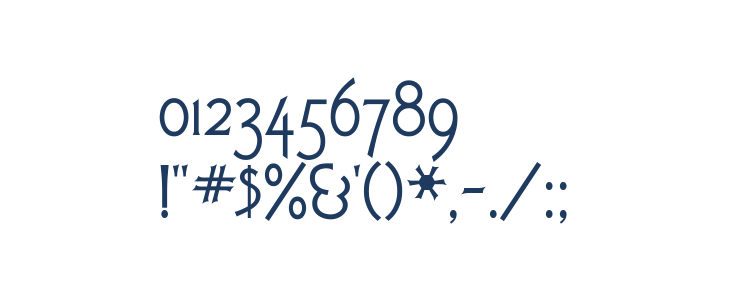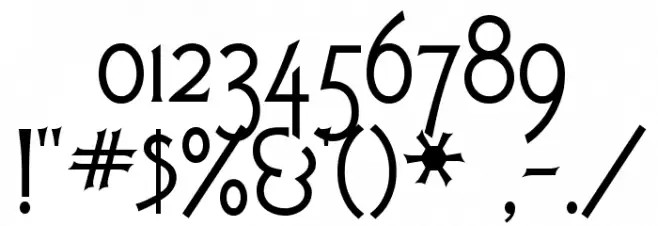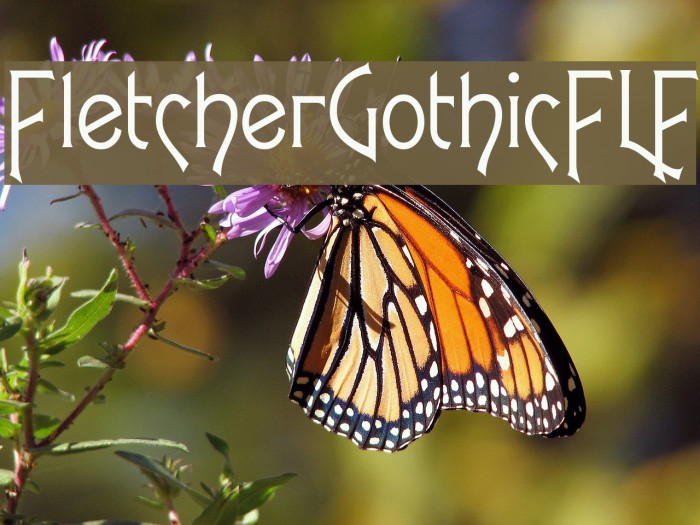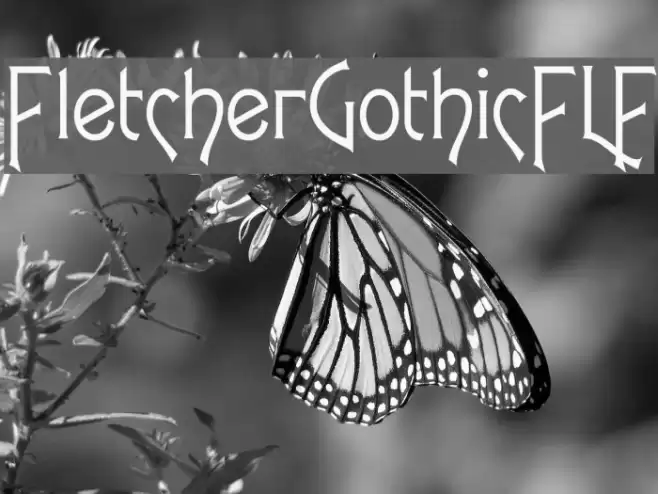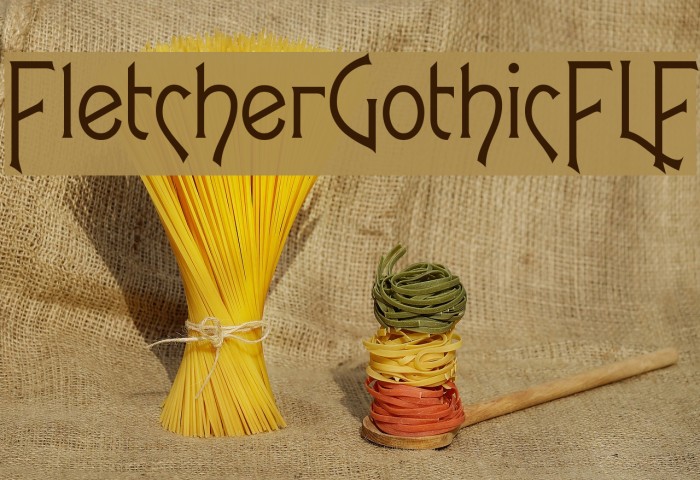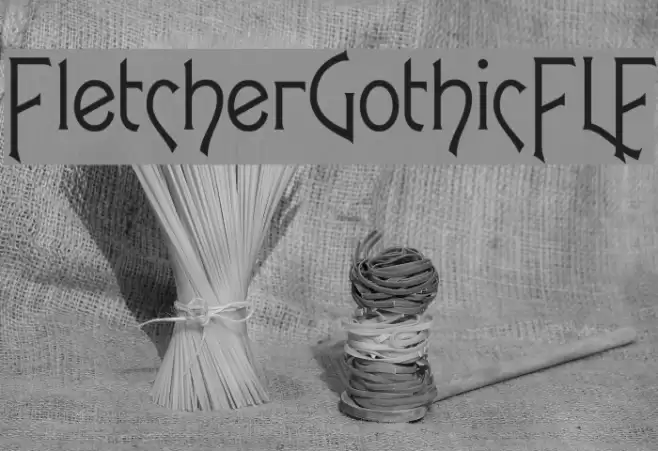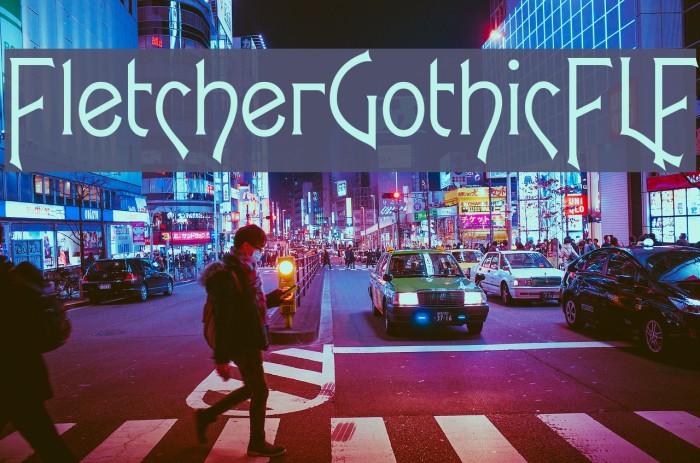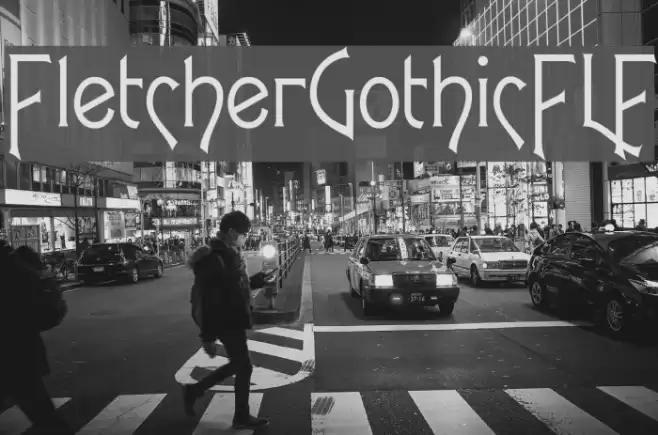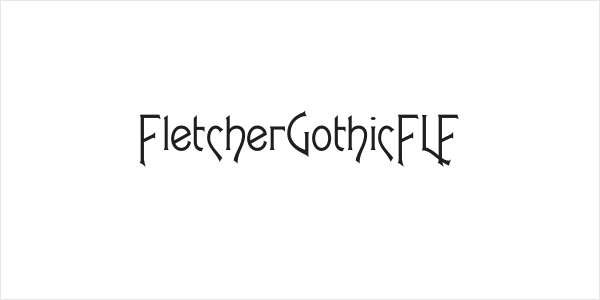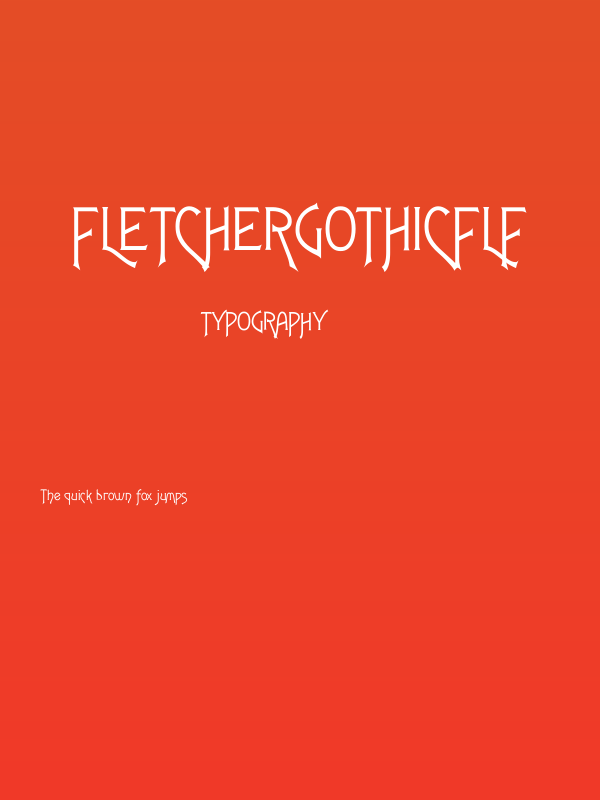
FletcherGothicFLF Font
FletcherGothicFLF Description
This font features a unique and artistic design, characterized by its sharp angles and distinctive curves. The uppercase letters exhibit a gothic influence with elongated vertical strokes and pointed serifs, while the lowercase letters maintain a consistent style with a slightly more rounded approach. The numerals are bold and clear, matching the overall aesthetic of the alphabet. Special characters are creatively integrated, maintaining the font's artistic flair. This font's striking appearance makes it suitable for projects that require a bold and eye-catching typeface.
| Overall Style | Gothic, Artistic |
| Proposed Projects | Ideal for posters, album covers, branding, and any creative projects that require a bold statement. |